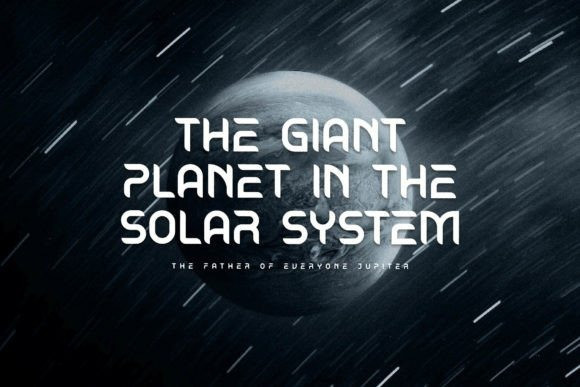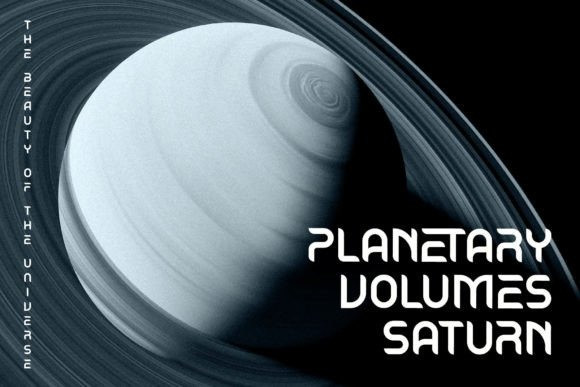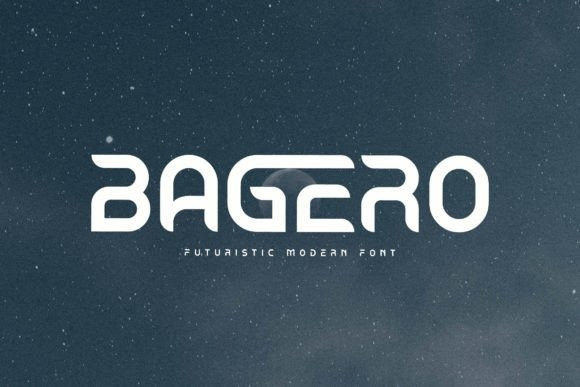
Bagero Font
Bagero Futuristic Font is a modern and classic sans-serif typeface with a unique style.
This typeface is perfect for an elegant & luxury logo, book or movie title design, fashion brand, magazine, clothes, lettering, quotes, and so much more. This font is PUA encoded, which means you can access all of the glyphs and swashes with ease!